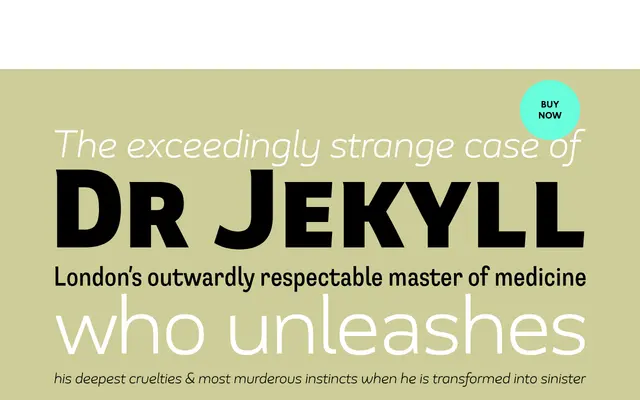
Jekyll & Hyde
G-Type · Nick Cooke
A dual-personality sans from Nick Cooke that shifts between a neo-humanist default and a grotesque alternate set via OpenType stylistic sets.
Jekyll & Hyde packages two distinct sans-serif personalities into one family: the default Jekyll cut is neo-humanist in character, while switching to Style Set 1 reveals Hyde, a more conventional grotesque. The family spans three widths and multiple weights, with variable font files bundled into the family volumes, offering two axes for weight and width. An extended Latin character set covers West, Central and East European languages along with Baltics and Turkish, with small caps, alternates and multiple stylistic sets included.
Described by the foundry as a neo-humanist sans in its default form (Jekyll), with a grotesque variant accessible via Style Set 1 (Hyde), placing it firmly in the humanist sans tradition with grotesque alternates.